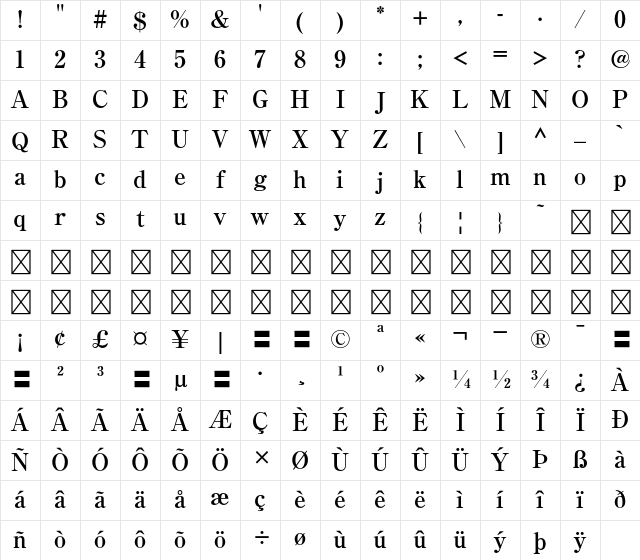
A-OTF Honami Std B
Style: B
Designer: Masanobu Moriyama
Design Context for A-OTF Honami Std
A-OTF Honami Std is a composed and adaptable typeface that performs quietly and consistently across a wide range of design contexts.